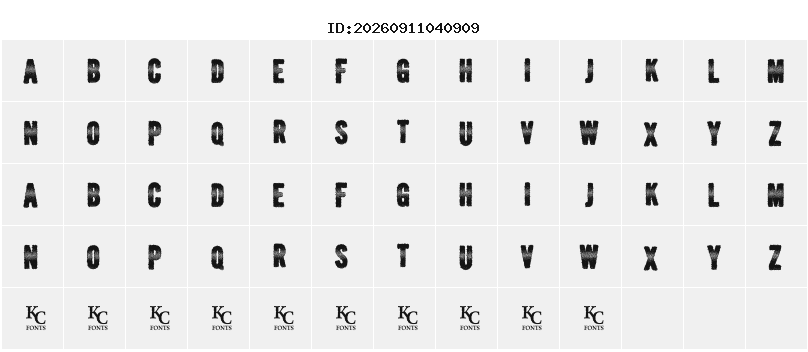
Verbal Diarrhea Preview
• Font Name: Verbal Diarrhea
• Designer: Kevin Christopher
About Verbal Diarrhea.ttf
Verbal Diarrhea.ttf is a modern, elegant sans-serif font designed for ultimate readability and visual harmony. Perfect for branding, headlines, web design, and print materials.